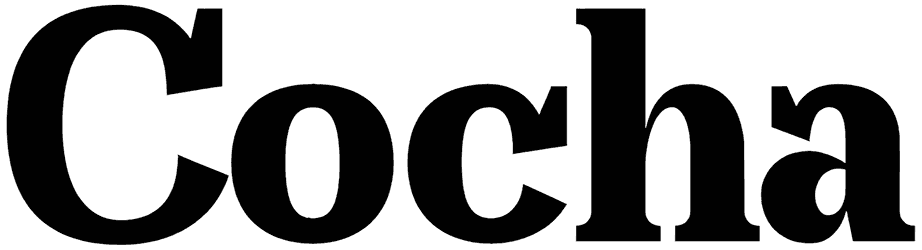
Cocha Font
Some fonts are designed to feel luxurious without becoming overly formal, and Cocha achieves that balance beautifully. With its elegant serif construction, refined contrasts, and decorative swashes, it carries the kind of sophistication usually associated with premium editorial design and high-end branding. The letterforms feel graceful and confident, making every headline appear more intentional and polished.
Whether you’re creating fashion branding, luxury packaging, magazine covers, wedding stationery, beauty products, restaurant identities, or elegant social media graphics, this slab serif font brings a timeless sense of style that immediately elevates the presentation. Its real strength lies in combining classic serif elegance with modern versatility, allowing designs to feel both prestigious and contemporary. Sometimes the perfect typeface doesn’t demand attention; it earns it through refinement.